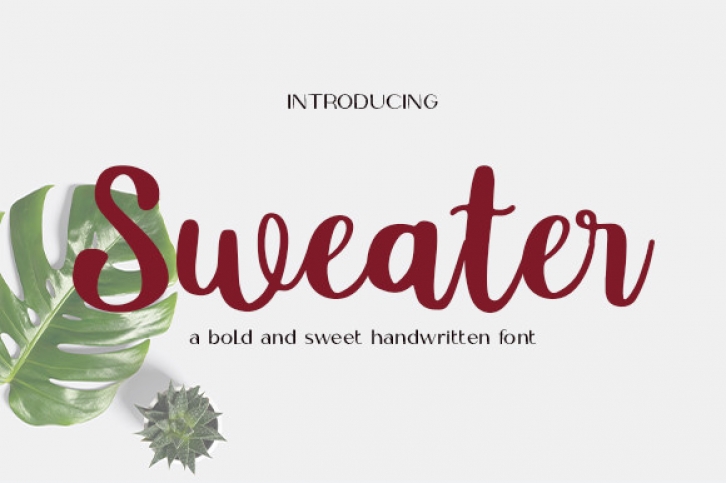
Sweater is a script-type font created by paying careful attention to every curve and space to produce a quality font that is perfect for any project. It goes beautifully on wedding invitations, t-shirt printing, branding, and much more. Add it to any of your creative designs, and they will capture everyone’s attention!